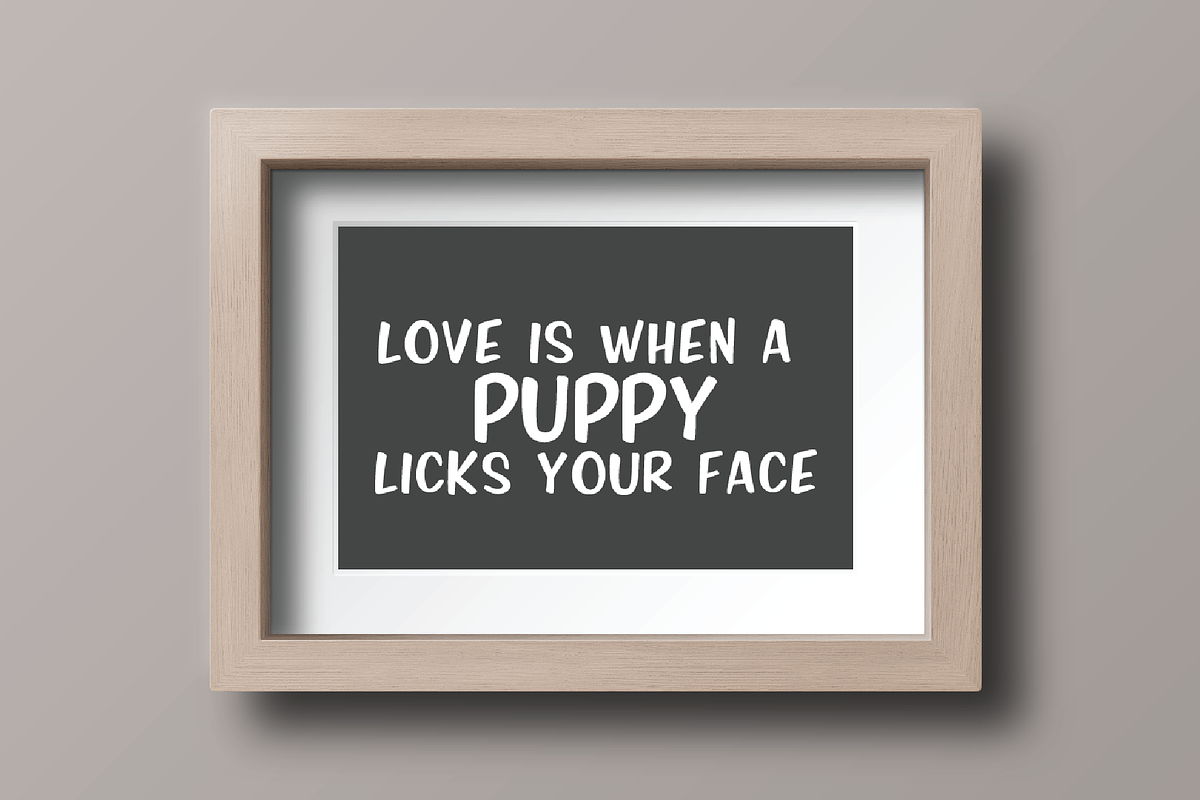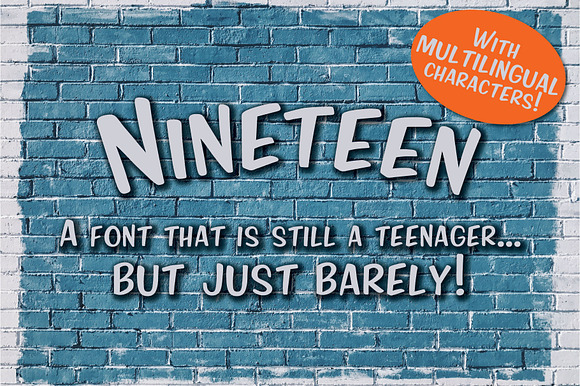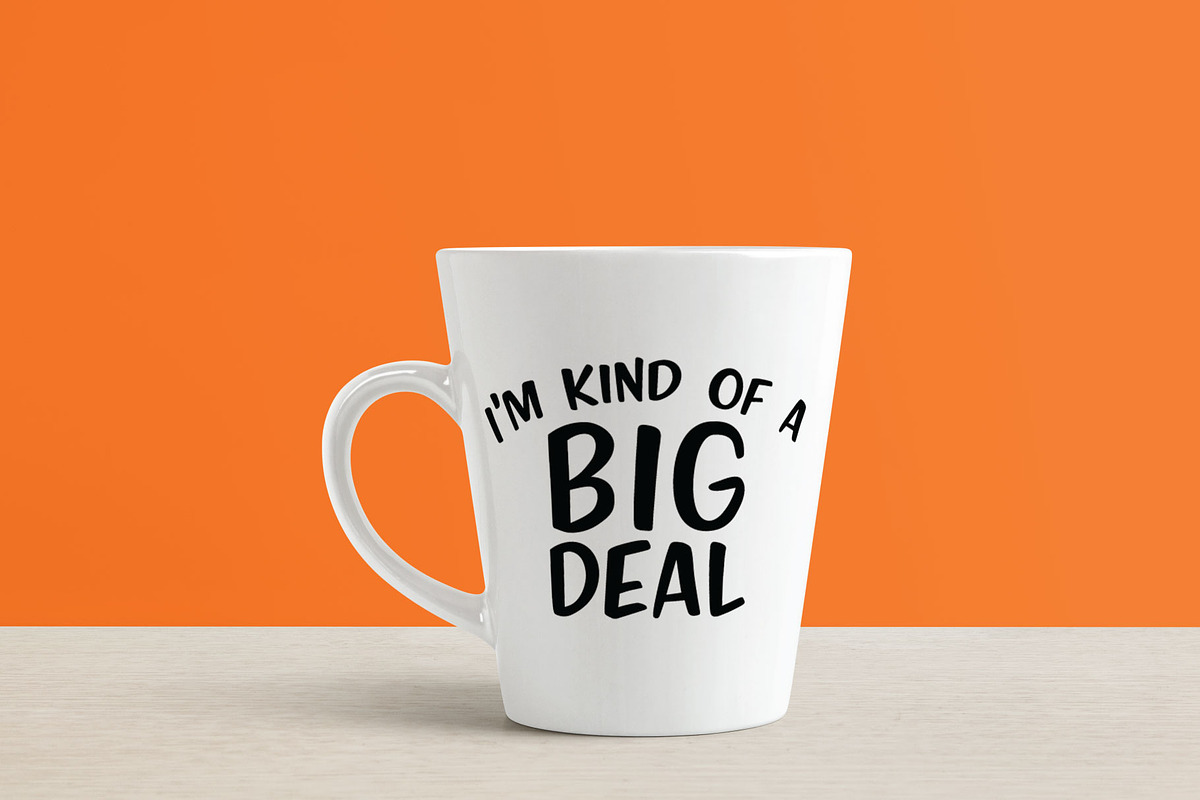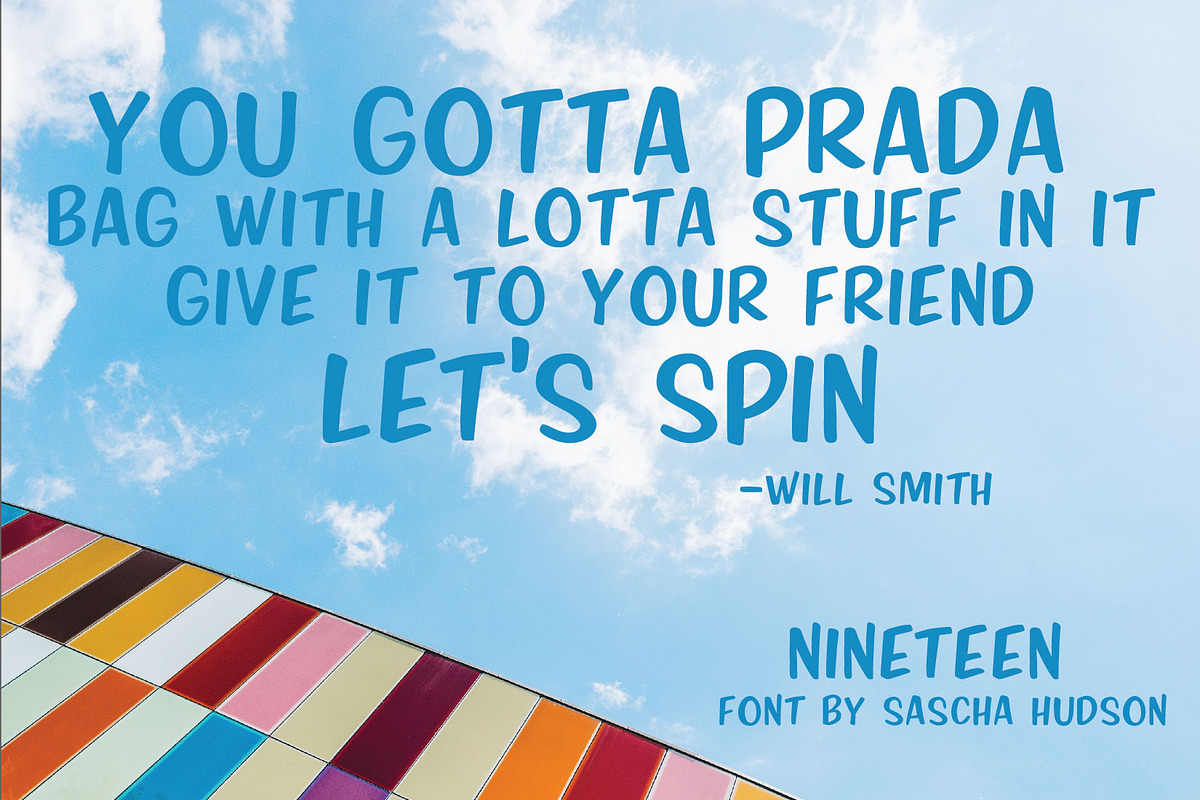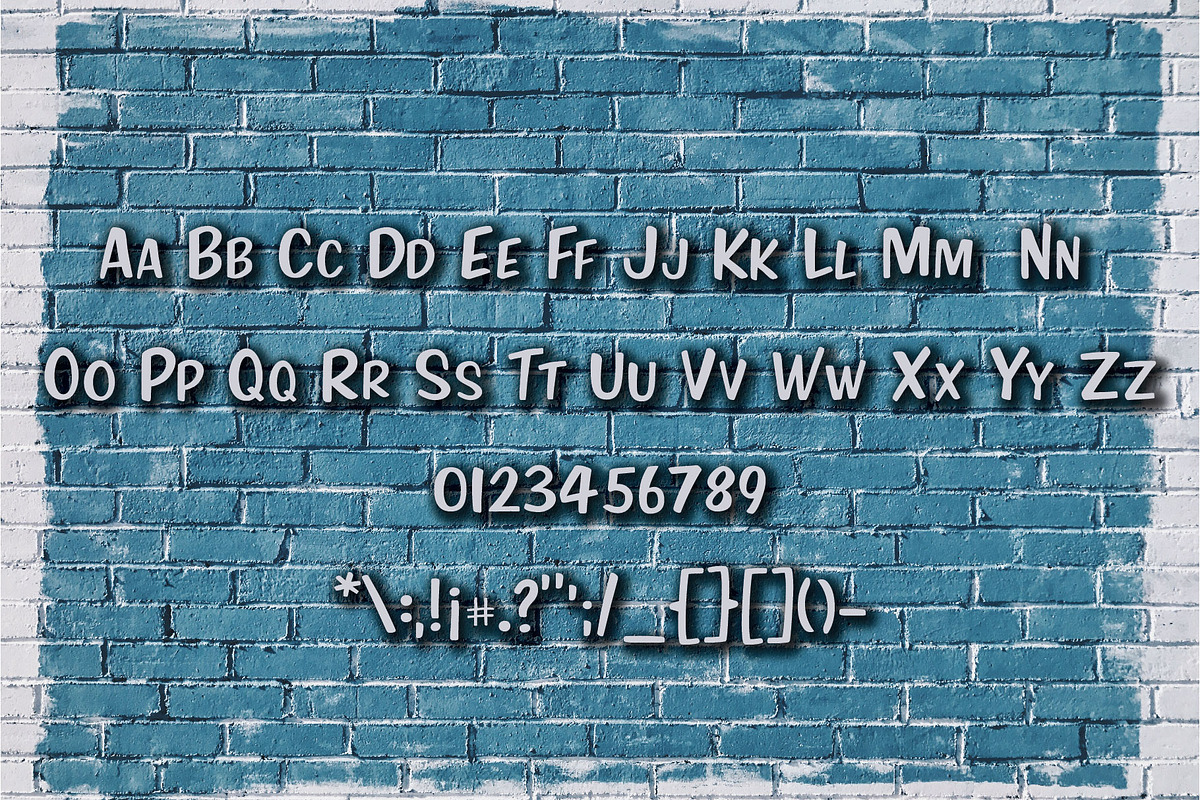
Nineteen Sans Serif Font
Introducing Nineteen, a quirky font that just wants to be taken seriously.
Nineteen is sans serif and contains multilingual support with accented characters for international (Western European, Central European and South Eastern European) users. Simply access them through the Glyphs palettes in programs like Illustrator or InDesign. If you don't have these programs, you'll still have access to all of the standard and international characters.